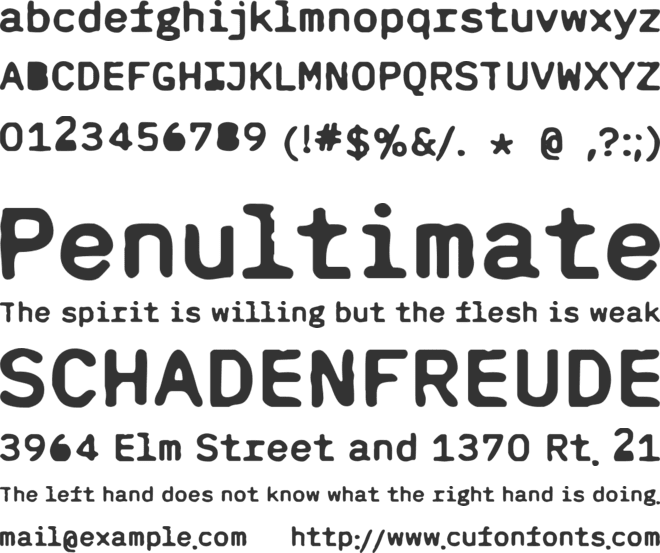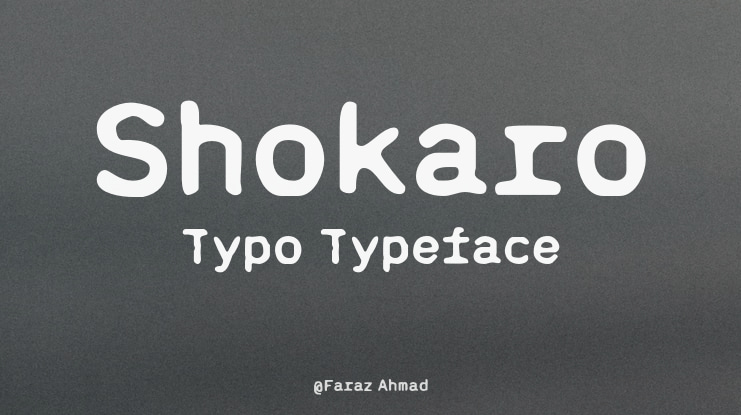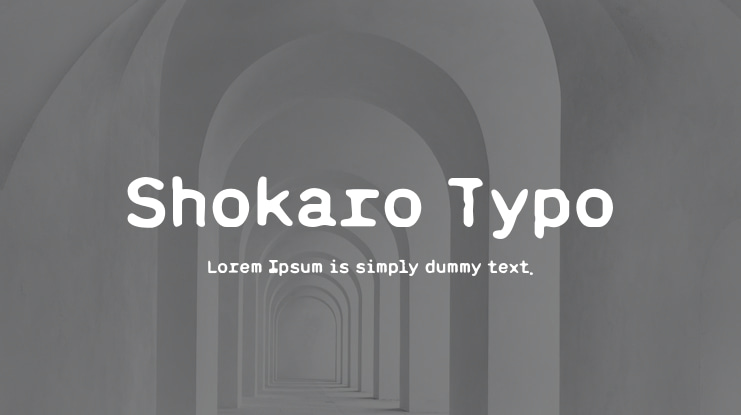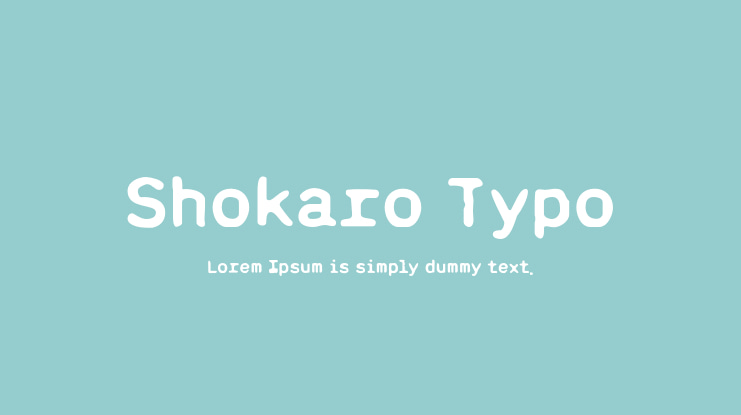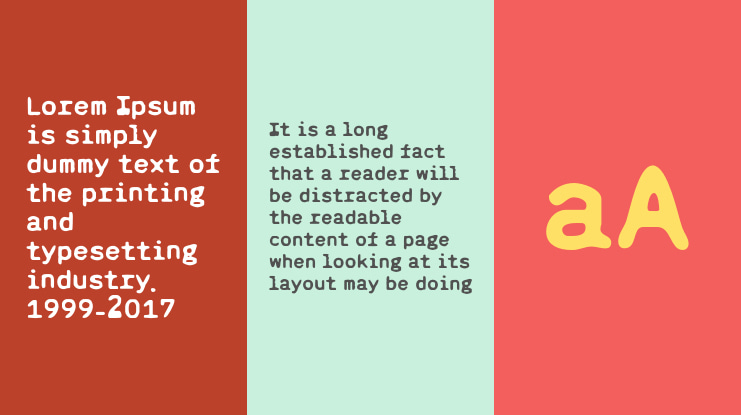
Shokaro Typo Font
Shokaro Typo Font is a playful and quirky typeface with rounded edges and a hand-drawn look. It’s perfect for adding a fun and casual touch to your projects. The font is bold and easy to read, making it ideal for children's designs, creative posters, and informal invitations. Best of all, it’s free to download.